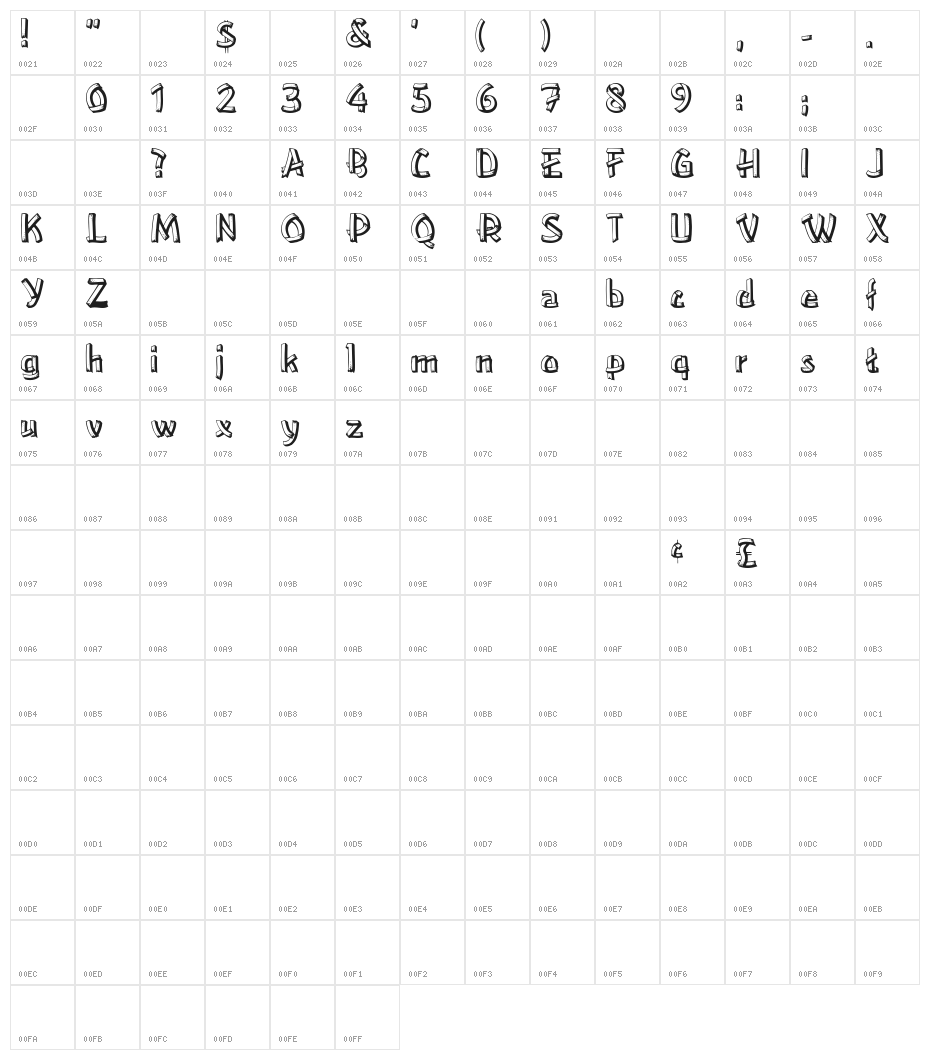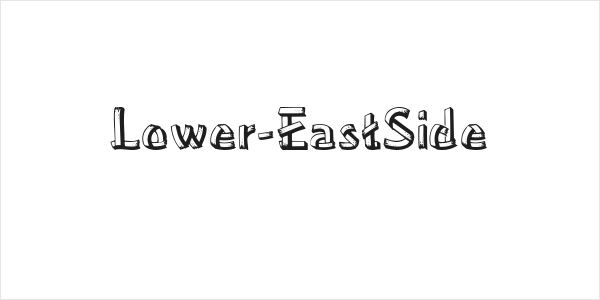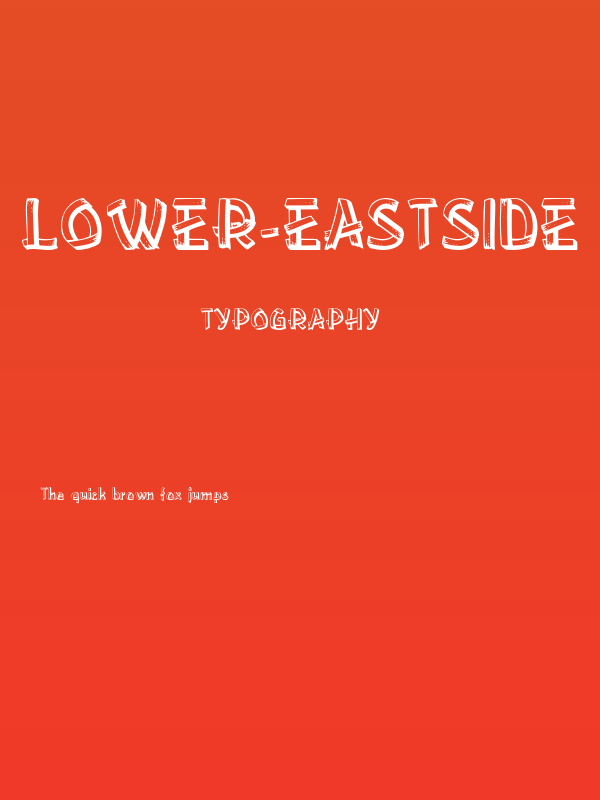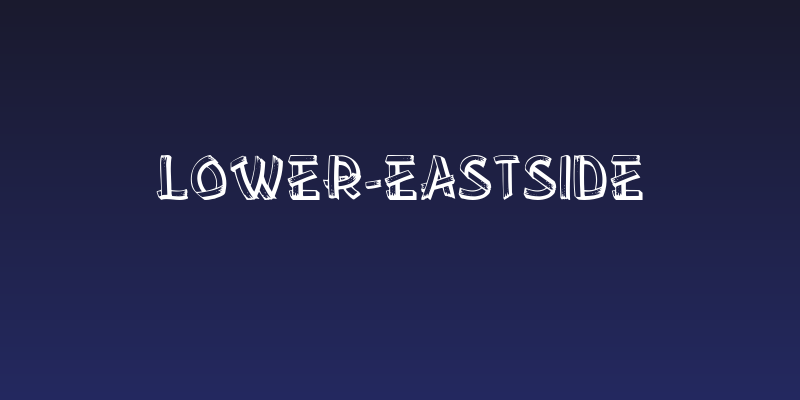
Lower-EastSide Font
Lower-EastSide Description
This font features a bold and dynamic style with a hand-drawn appearance, characterized by thick strokes and a slightly distressed texture. The letters have a playful and energetic feel, with uneven edges and a sketch-like quality that adds a sense of movement and creativity. The uppercase and lowercase letters maintain a consistent style, while the numbers and special characters complement the overall design with similar artistic flair. This font is ideal for projects that require a bold and expressive touch, capturing attention with its unique and artistic presentation.
Proposed ProjectsIdeal for posters, album covers, graffiti art, and creative branding projects.